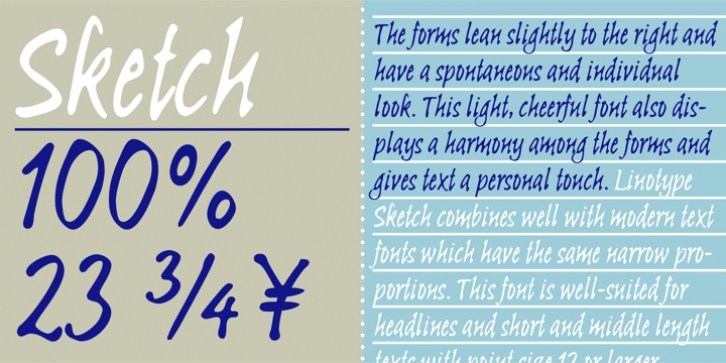
Linotype Sketch was designed by Dieter Kurz and published by Linotype. Linotype Sketch contains 2 styles and family package options.
Linotype Sketch is part of the Take Type Library, chosen from the contestants of Linotype's International Digital Type Design Contests of 1994 and 1997. German designer Dieter Kurz gave his display font a calligraphic character. The forms lean slightly to the right and have a spontaneous and individual look. This light, cheerful font also displays a harmony among the forms and gives text a personal touch. Linotype Sketch combines well with modern text fonts which have the same narrow proportions. This font is well-suited for headlines and short and middle length texts with point size 12 or larger.